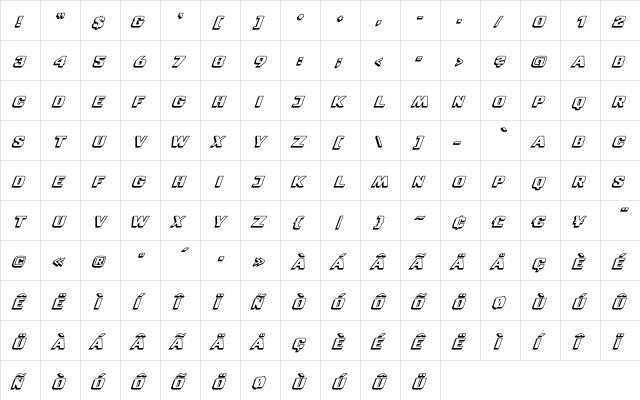
CA MagicHour-Shadow Regular Font Preview
CA MagicHour-Shadow Regular
CA MagicHour-Shadow Regular Font Details
| Foundry | stefan claudius for cape-arcona.com |
Design Context for CA MagicHour-Shadow Typeface
CA MagicHour-Shadow is built around its visual character rather than neutral utility — its distinctive forms are designed to make an impression at display sizes.
Font Pairing: Pair with a clean neutral sans-serif for body copy to let CA MagicHour-Shadow's character lead without overwhelming the composition.
Pro Tip: Use CA MagicHour-Shadow exclusively at display sizes — it was designed to be seen, not read at length. Let a neutral companion handle body copy.